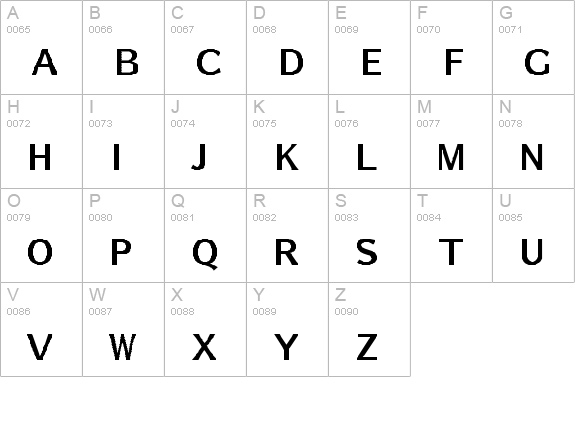
Marke-Bold is a strong, high-contrast variant in the Marke typeface family \xE2\x80\x94 well suited to headlines, attention-grabbing titles, and strong calls-to-action.
Introducing Marke-Bold, a stunningly bold and captivating font that is sure to make a lasting impression. With its striking and powerful design, Marke-Bold is perfect for projects that require a strong and confident touch. This font exudes elegance and sophistication, while also providing a modern and contemporary feel. Its clean lines and sharp edges give it a sleek and polished appearance, making it ideal for a wide range of applications. But what makes Marke-Bold even more impressive is that it is freely available to download at FontsMarket.com. Yes, you read that right - this exceptional font can be yours at no cost. Whether you're a professional designer, a student working on a project, or simply someone who appreciates beautiful typography, you can enjoy the benefits of Marke-Bold without breaking the bank. So why wait? Enhance your designs with the boldness and allure of Marke-Bold. Download it now from FontsMarket.com and let your creativity soar. Whether you're creating eye-catching headlines, designing striking logos, or crafting stunning invitations, Marke-Bold will elevate your work to new heights. Don't miss out on this incredible opportunity to add this remarkable font to your collection - get Marke-Bold today and watch your designs come to life.